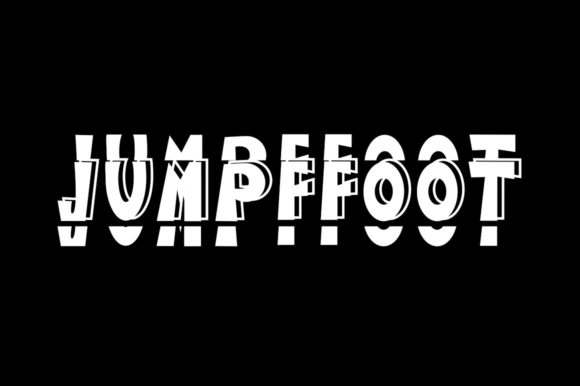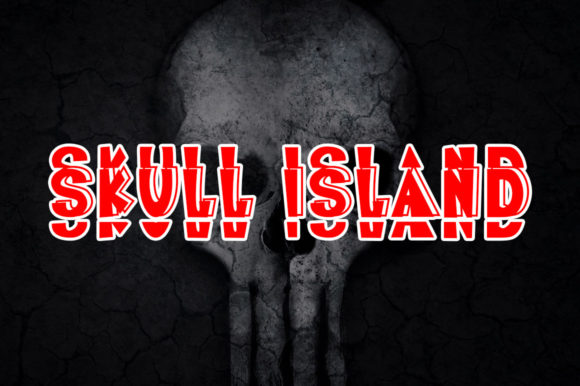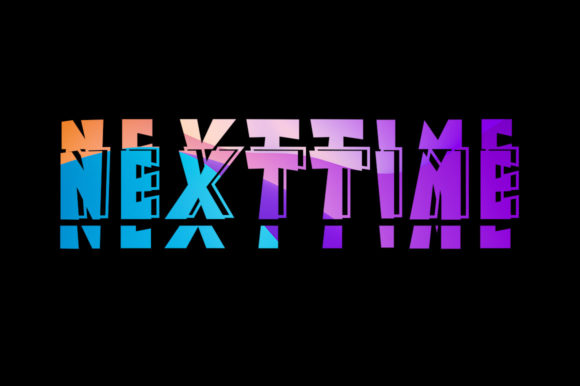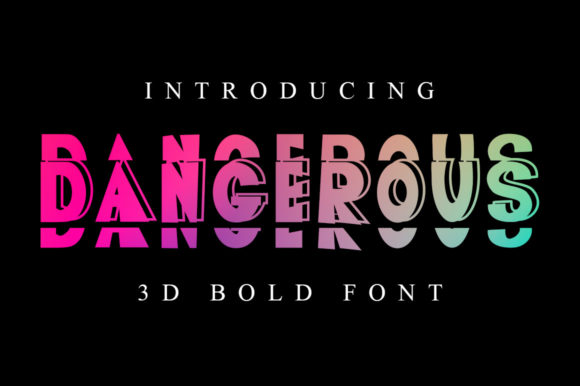
Dangerous Font: Elevate Your Designs with a Bold and Elegant Display Font
In the world of design, typography plays a crucial role in conveying messages, evoking emotions, and creating visual identities. Among the numerous fonts available, one that stands out for its unique blend of beauty, boldness, and versatility is the Dangerous Font. Dubbed as a beautiful and bold display font, Dangerous is making waves in the design community for its fresh, clean, and elegant appeal. Whether you’re working on formal or informal projects, this font promises to add an incredibly cool touch to your designs.
What Makes Dangerous Font Stand Out?
Dangerous Font is not just another addition to the vast sea of typefaces. Its standout feature is its perfect balance of boldness and elegance. This font is meticulously crafted to make a statement, making it ideal for designers looking to add a touch of sophistication and modernity to their work. Its characters are designed with precision, ensuring clarity and readability even at larger sizes, which is a significant advantage for display purposes.
Versatility Across Projects
One of the key benefits of using the Dangerous Font is its incredible versatility. This font can seamlessly transition across a wide range of projects. For formal projects, such as corporate branding, luxury packaging, or high-end event invitations, Dangerous Font adds a level of sophistication and professionalism. On the other hand, for informal projects like posters, flyers, or social media graphics, it injects a youthful and vibrant energy.
Enhancing Design Aesthetics
The aesthetic appeal of Dangerous Font lies in its clean lines, elegant curves, and bold presence. It can be used to create stunning headings, captivating titles, and memorable slogans that capture the audience’s attention instantly. Designers can also experiment with different colors, textures, and effects to further enhance the font’s visual impact, making their designs truly stand out.
Why Designers and Crafters Love Dangerous Font
Designers and crafters worldwide are gravitating towards Dangerous Font for several reasons:
• Ease of Use: Dangerous Font is highly legible, making it easy to use for both digital and print media.
• Customization: The font offers a range of customization possibilities, allowing designers to tailor it to their project’s specific needs.
• Uniqueness: Its distinctive style ensures that designs stand out from the crowd, offering a fresh alternative to more traditional typefaces.
How to Get the Most Out of Dangerous Font
To truly leverage the potential of Dangerous Font, consider the following tips:
• Experiment with Sizes: While it’s designed as a display font, experimenting with different sizes can yield interesting effects, from bold statements to subtle hints.
• Play with Colors: The font’s clean design makes it versatile for use with various color schemes, from monochromatic to vibrant multi-color designs.
• Mix and Match: Don’t be afraid to combine Dangerous Font with other typefaces for a dynamic and layered look.
Dangerous Font is more than just a typeface; it’s a design statement. Its beautiful, bold, and elegant design makes it a valuable addition to any designer’s toolkit. Whether you’re crafting a brand’s visual identity, designing marketing materials, or working on personal projects, Dangerous Font offers the versatility and aesthetic appeal to elevate your work. With its wide range of applications and user-friendly design, it’s no wonder that Dangerous Font is becoming a favorite among designers and crafters. So, why settle for ordinary when you can make a statement with Dangerous Font?